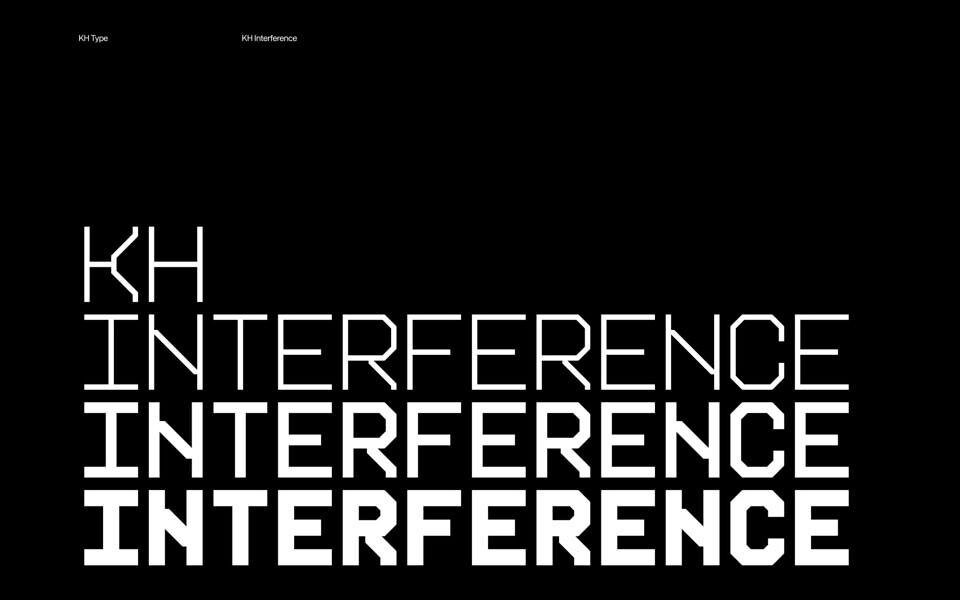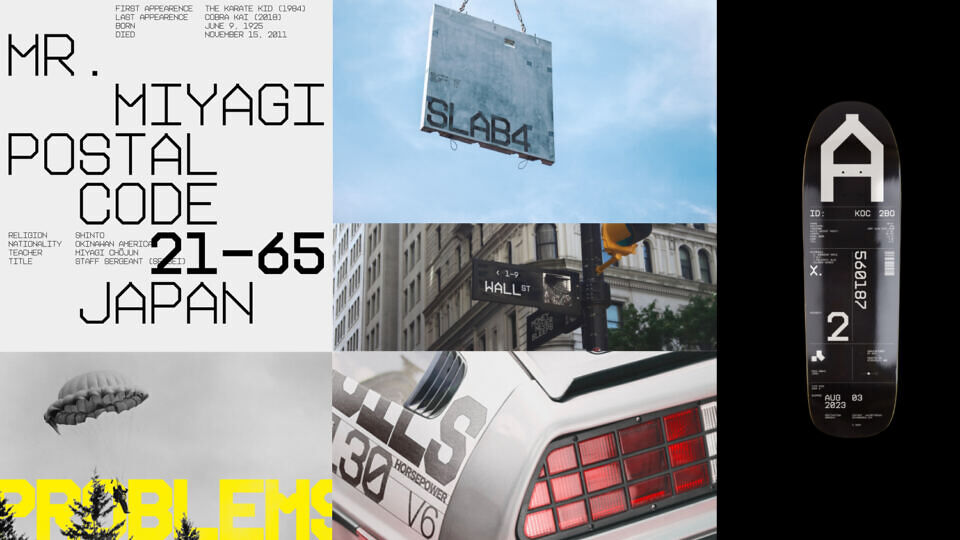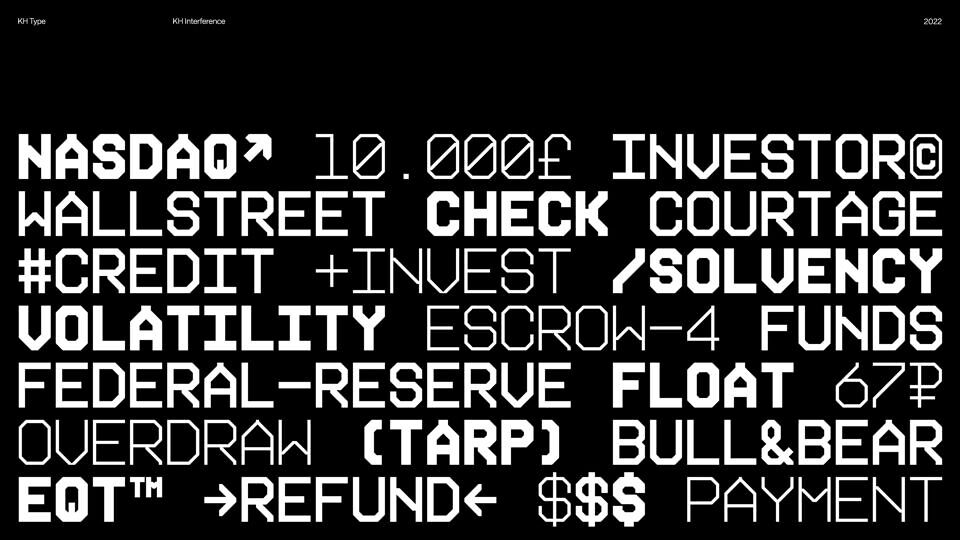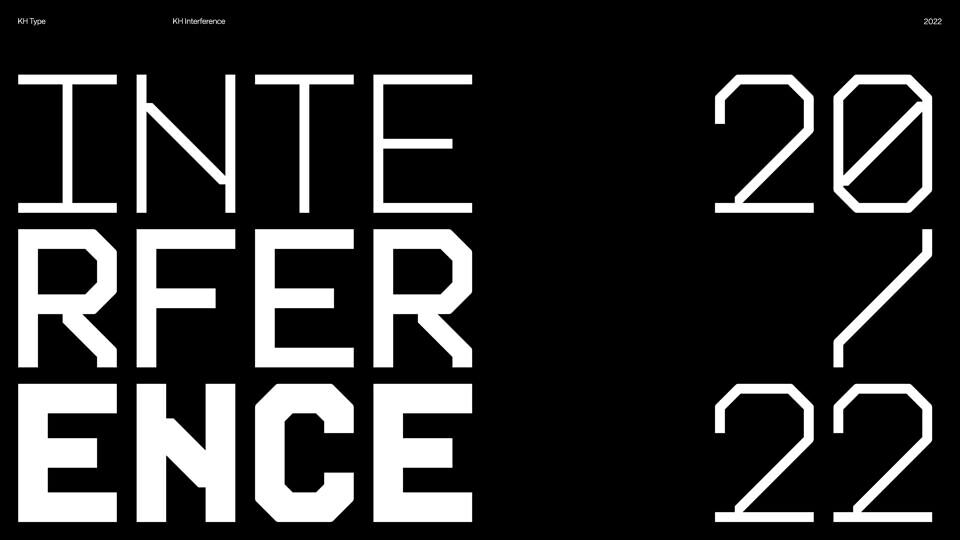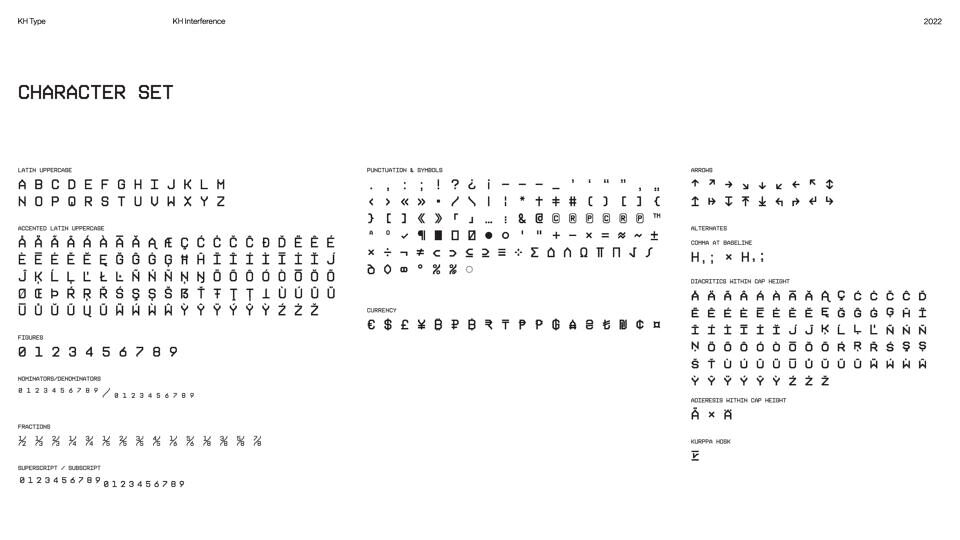
KH Interference is an uppercase only monospaced typeface inspired by primitive letter shapes. Both from the analog world, like printing on receipts and ticket stubs, as well as from the digital world, like pixelated type found on low-res screens.
It is designed on a 45° grid and the corners of outer shapes are rounded while the corners of the inner shapes are straight. KH Interference comes in three distinct weights and features an extensive character set with a wide range of symbols, arrows and currency signs. It also features alternate characters for all accented letters that reach above the cap height or below the baseline, to enable the super tight line-spacing that makes a display typeface like this blossom.